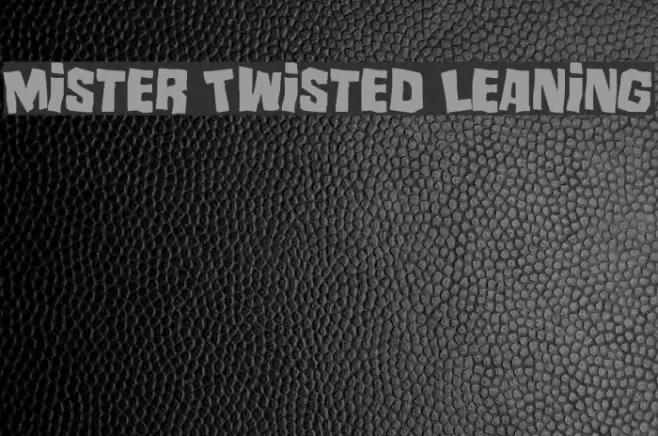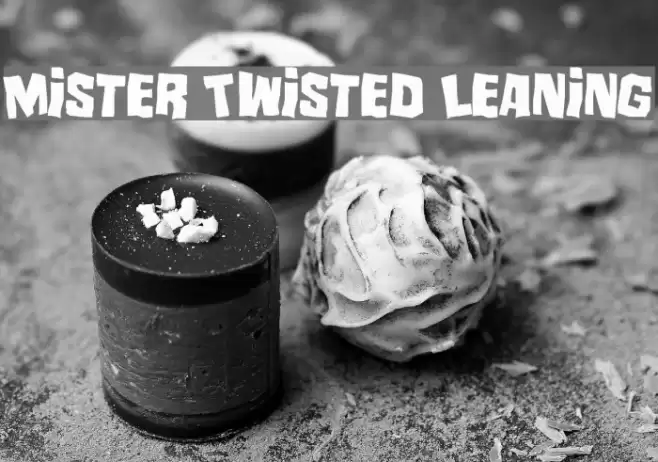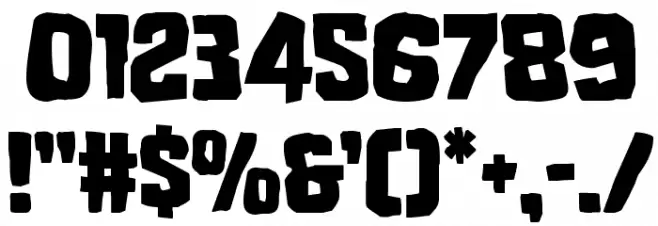
Mister Twisted Leaning Font
Mister Twisted Leaning Description
This font features a bold and playful design with a distinct leaning and twisted appearance. Each character exhibits a unique, irregular shape that adds a sense of movement and energy. The bold strokes and uneven edges give it a hand-drawn, artistic feel, making it stand out in any design. The uppercase and lowercase letters maintain a consistent style, while the numbers and special characters integrate seamlessly, offering a comprehensive set for creative projects. Its quirky and dynamic nature makes it ideal for eye-catching headlines and playful designs.
A bold, twisted, and playful font with a hand-drawn, energetic style from Uncategorized fonts.
- Proposed Projects: Ideal for posters, children's books, comic titles, and playful branding.
- Overall Style: Playful, Artistic, Energetic
- Use Case: Headlines, Posters, Branding